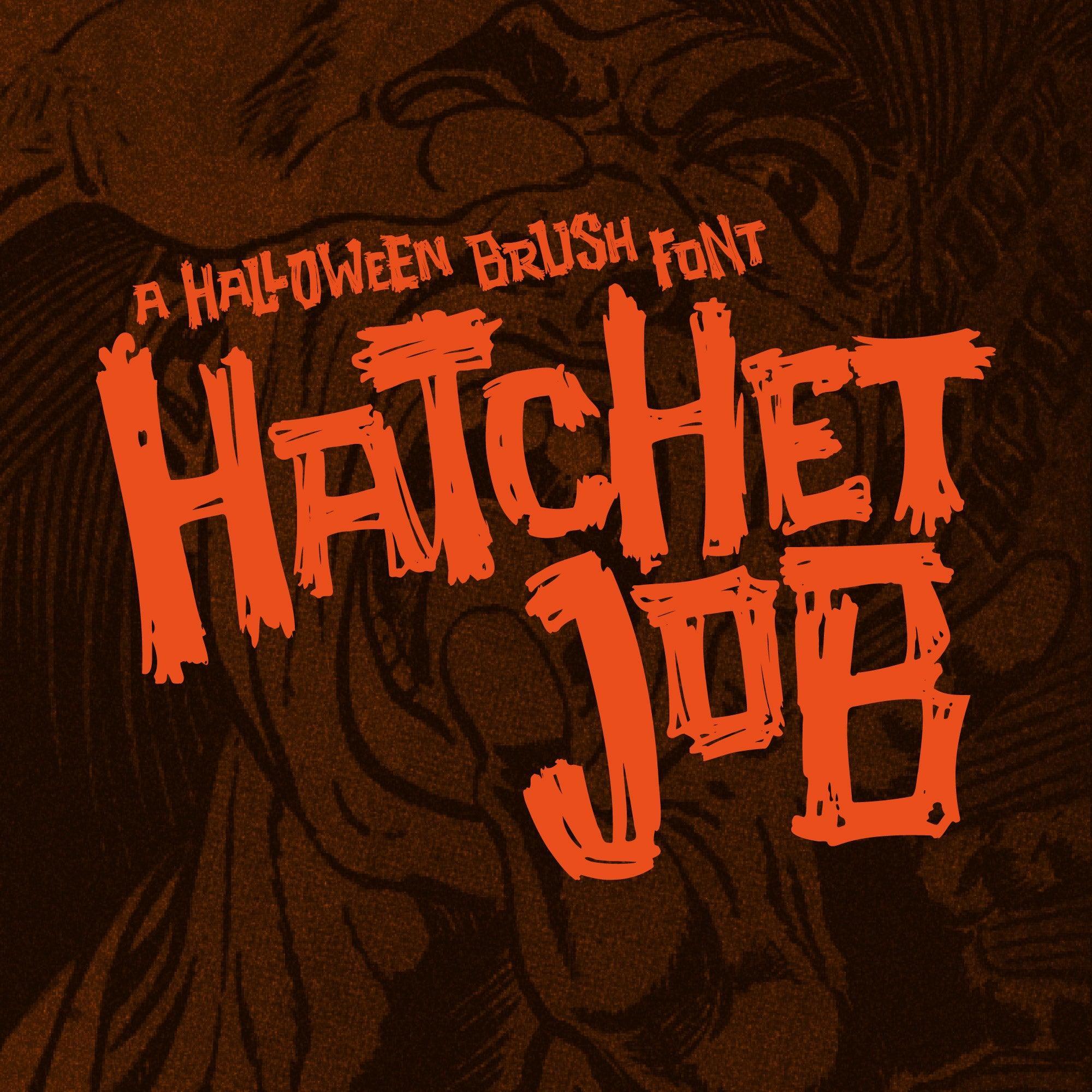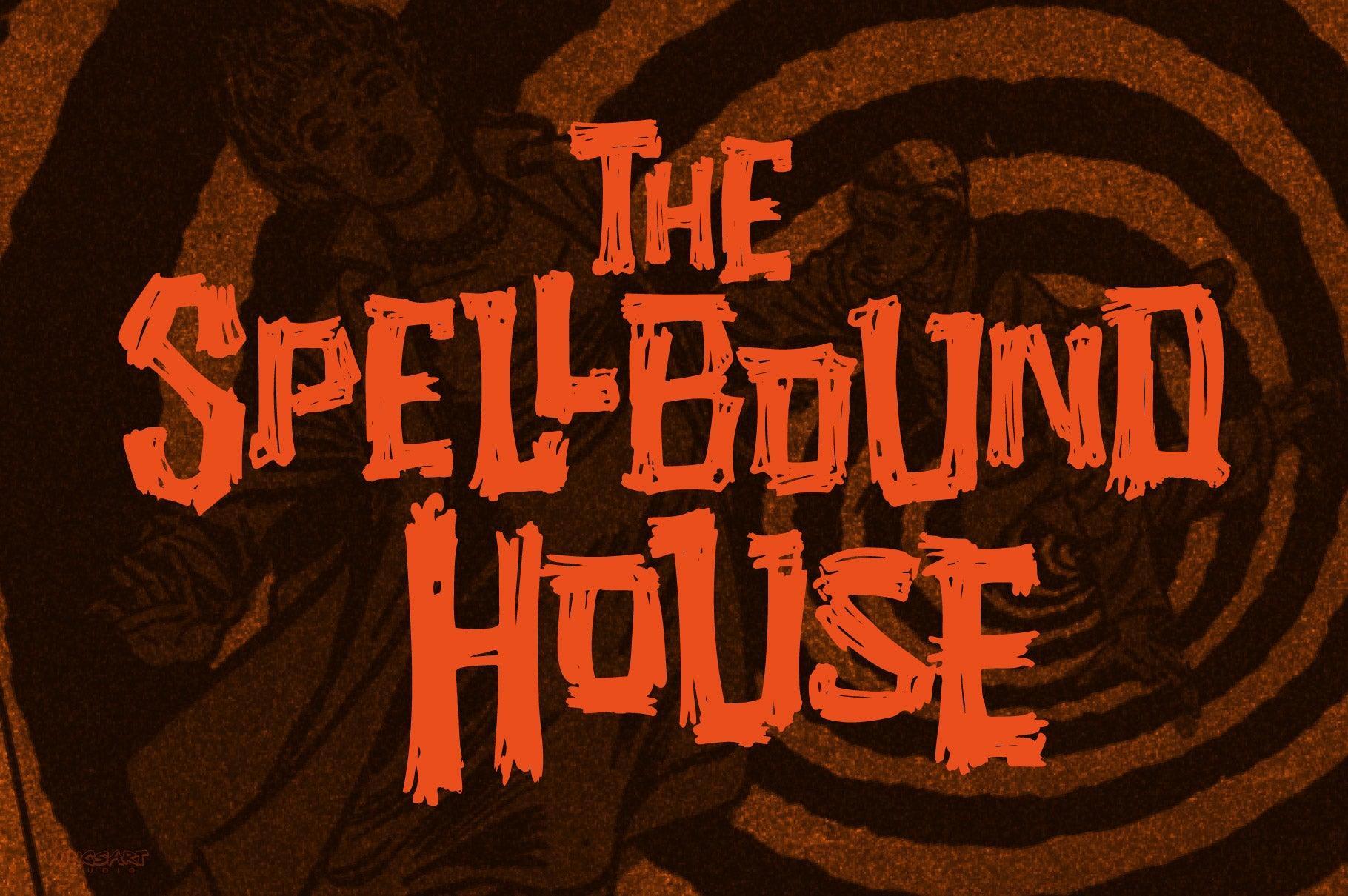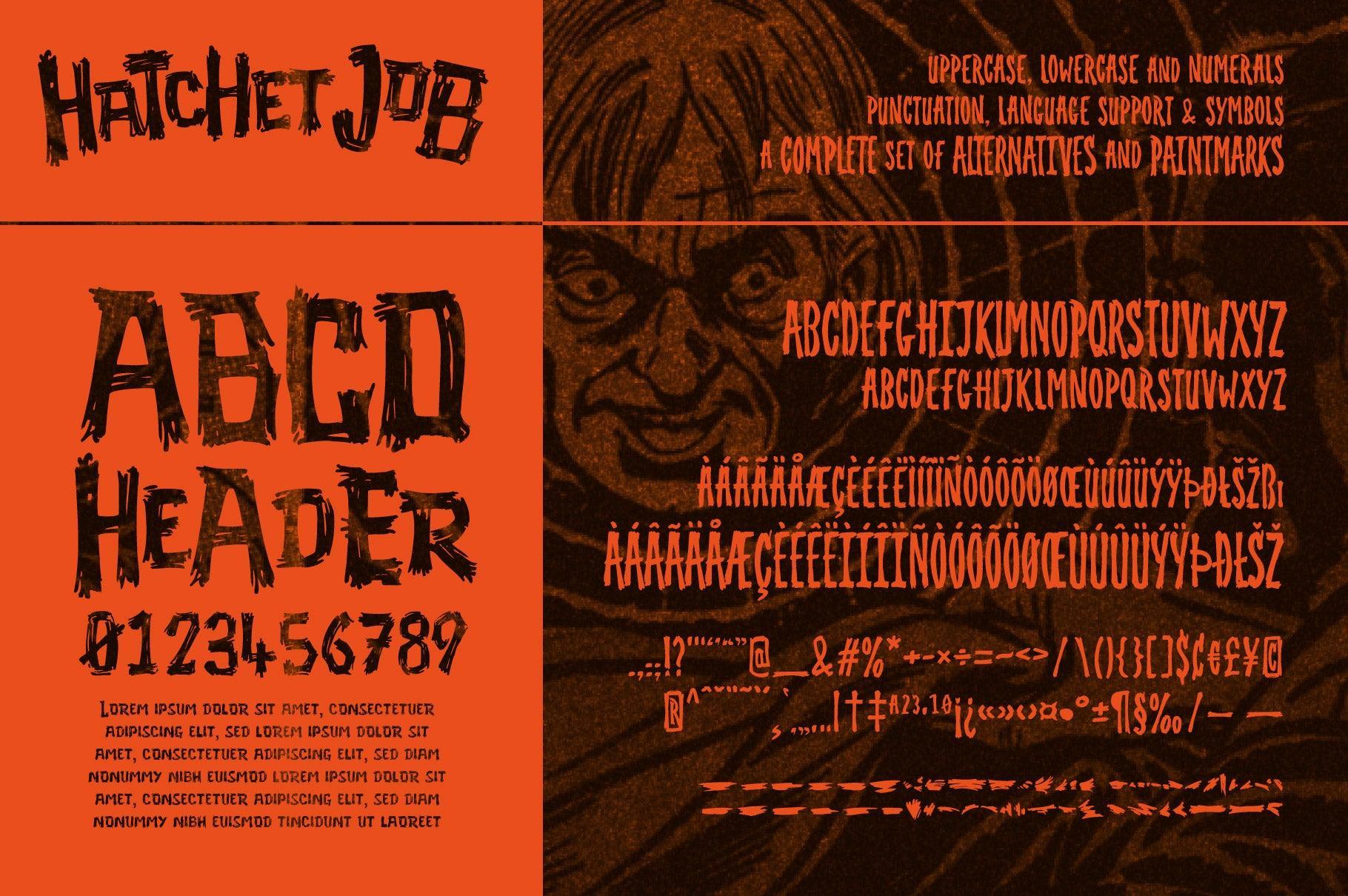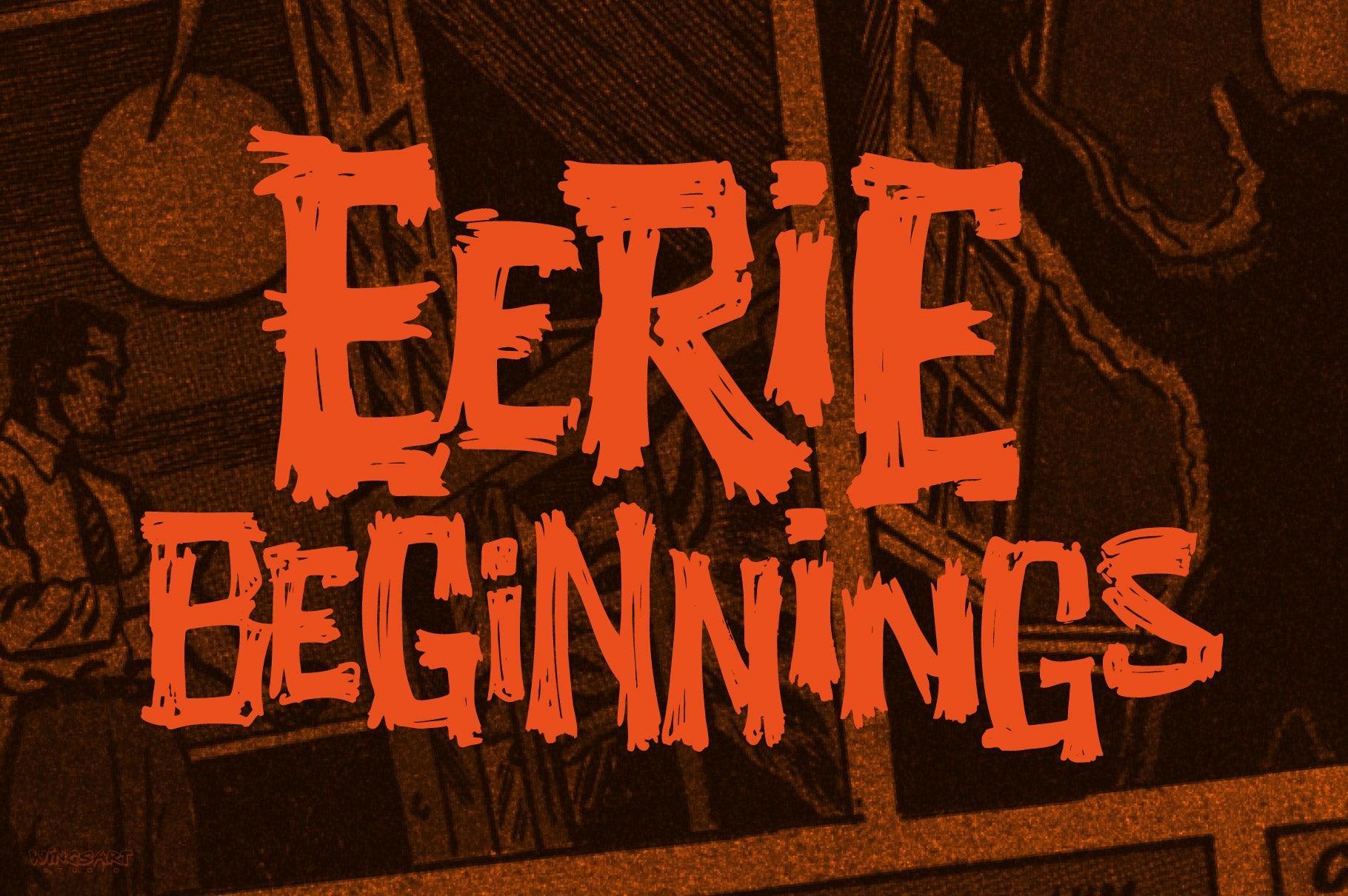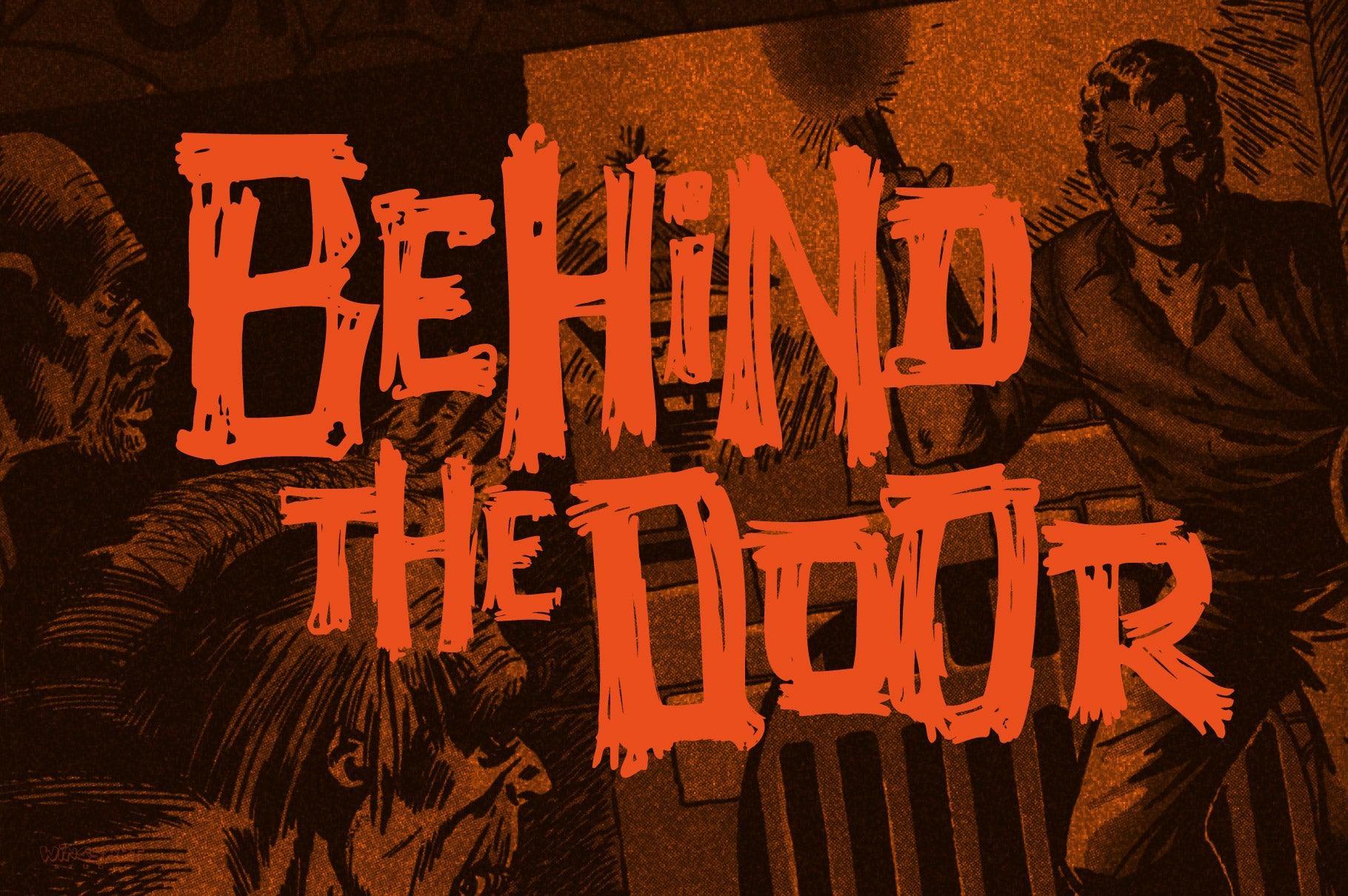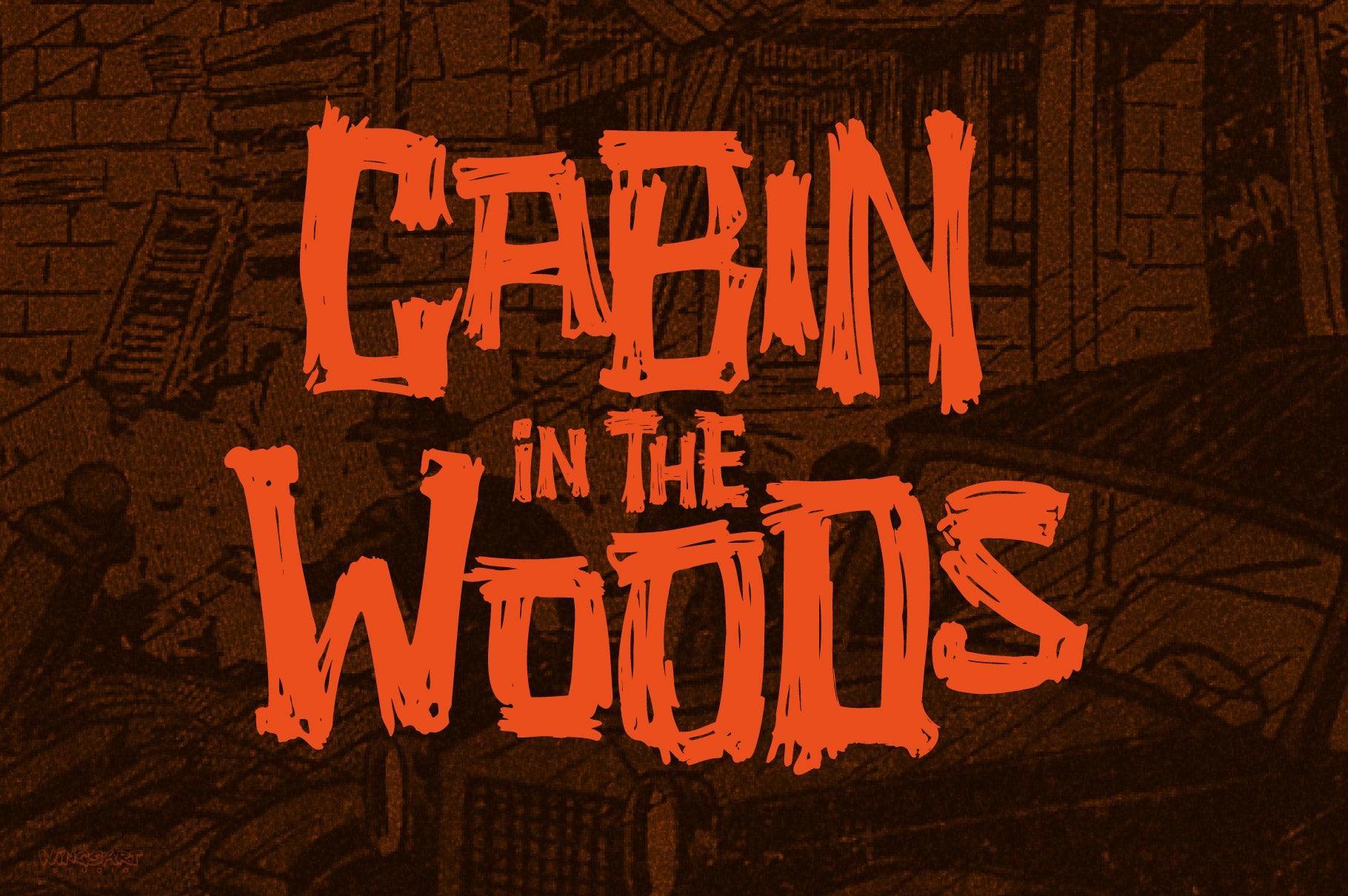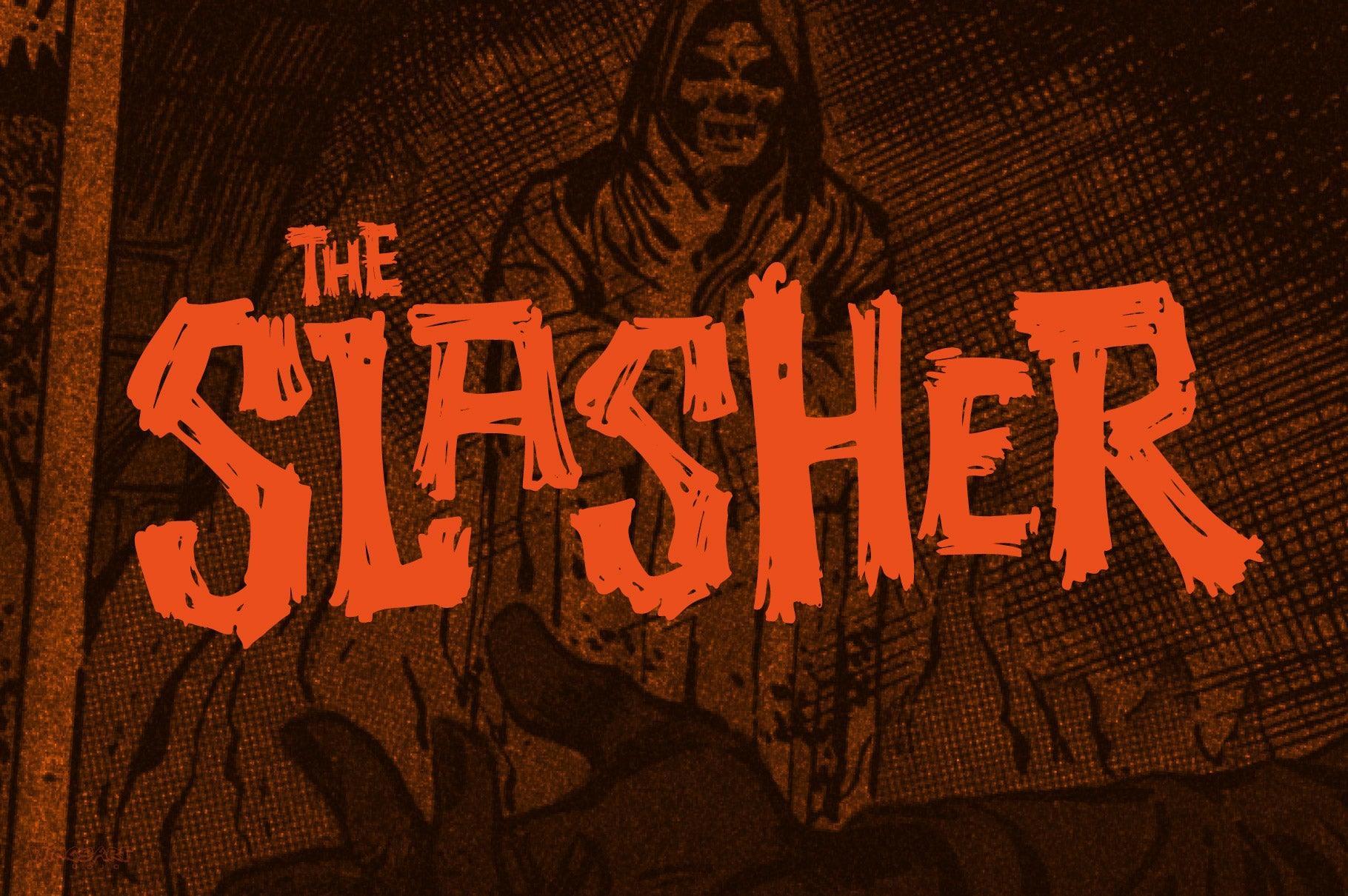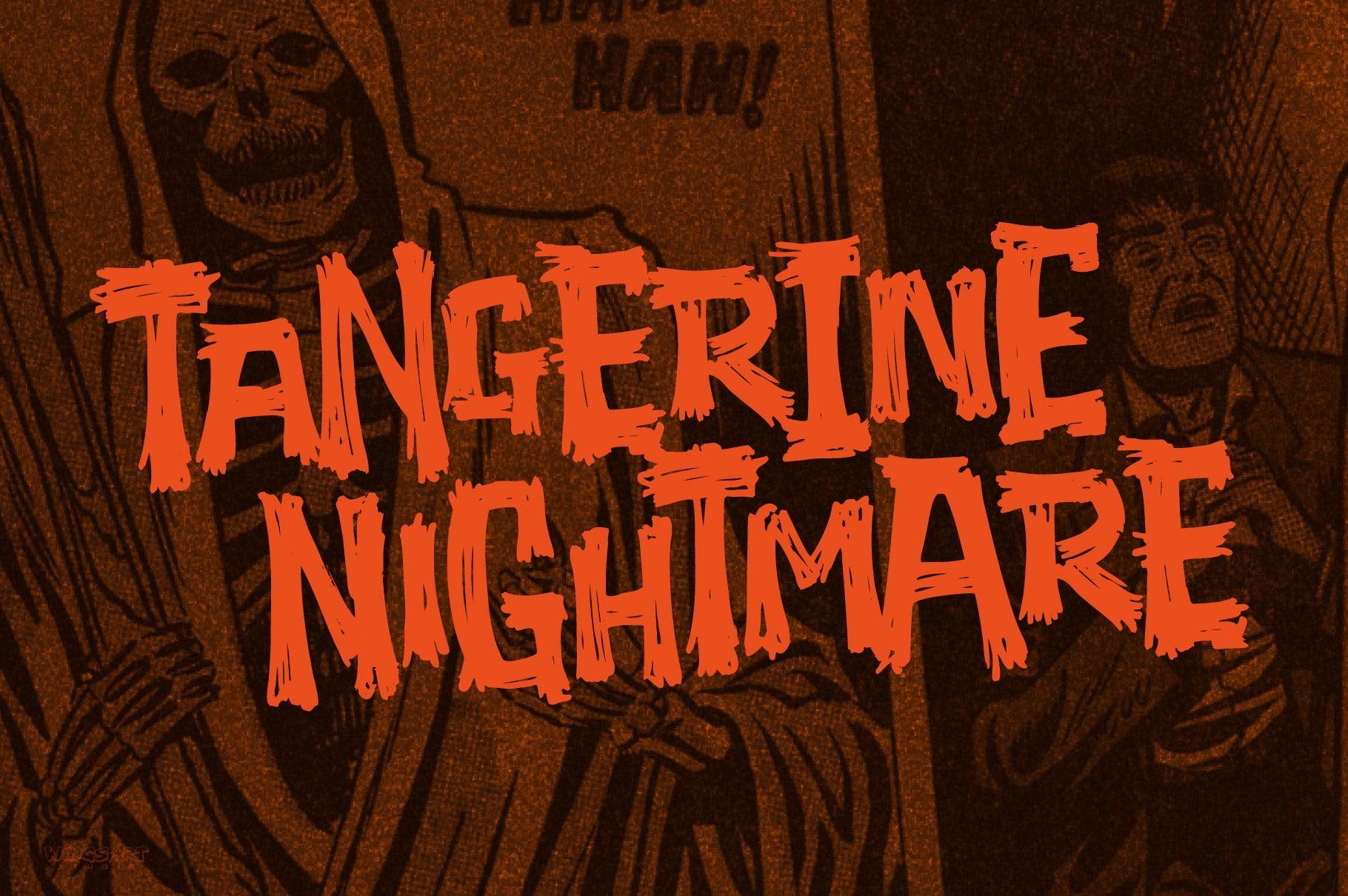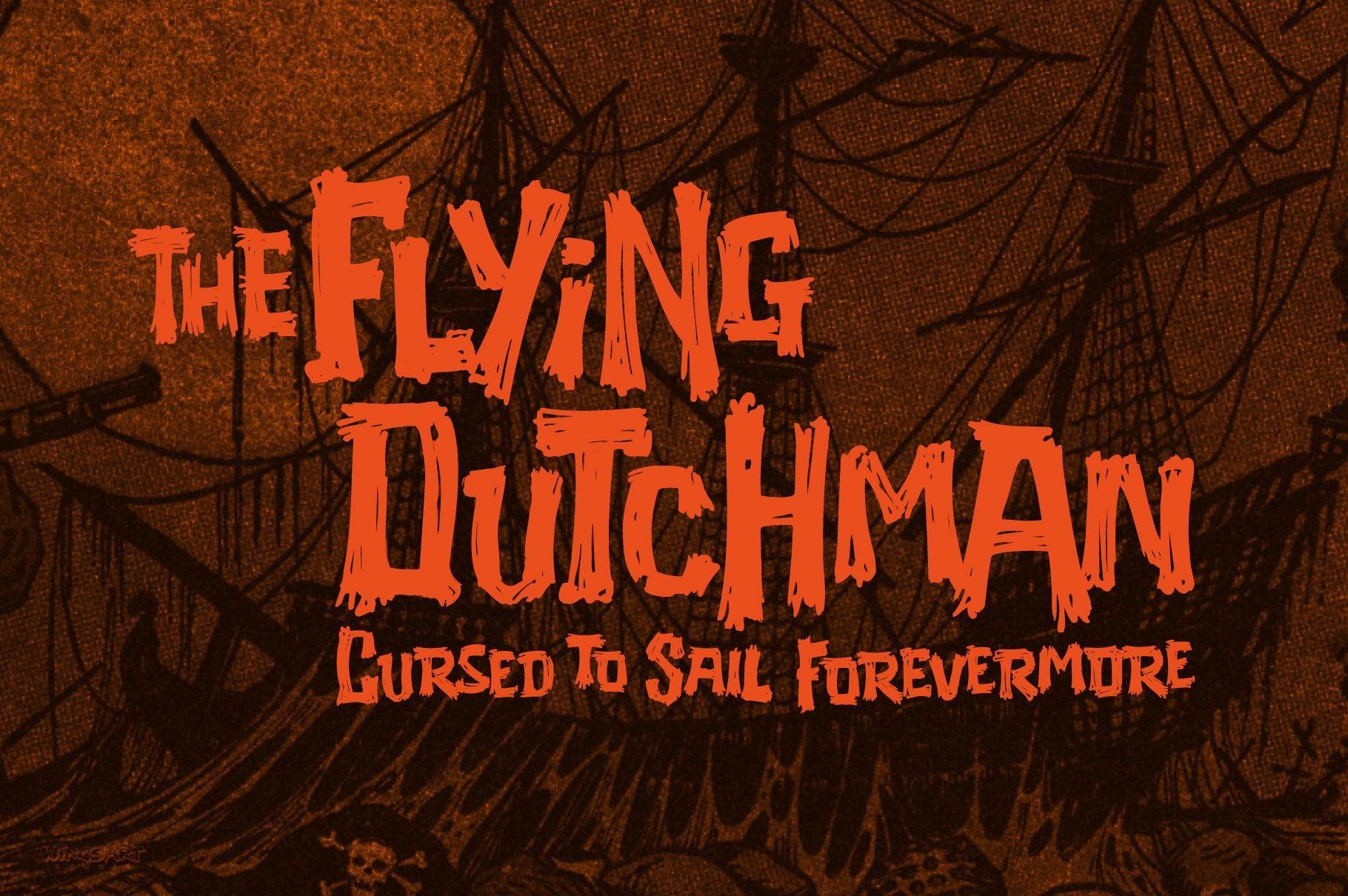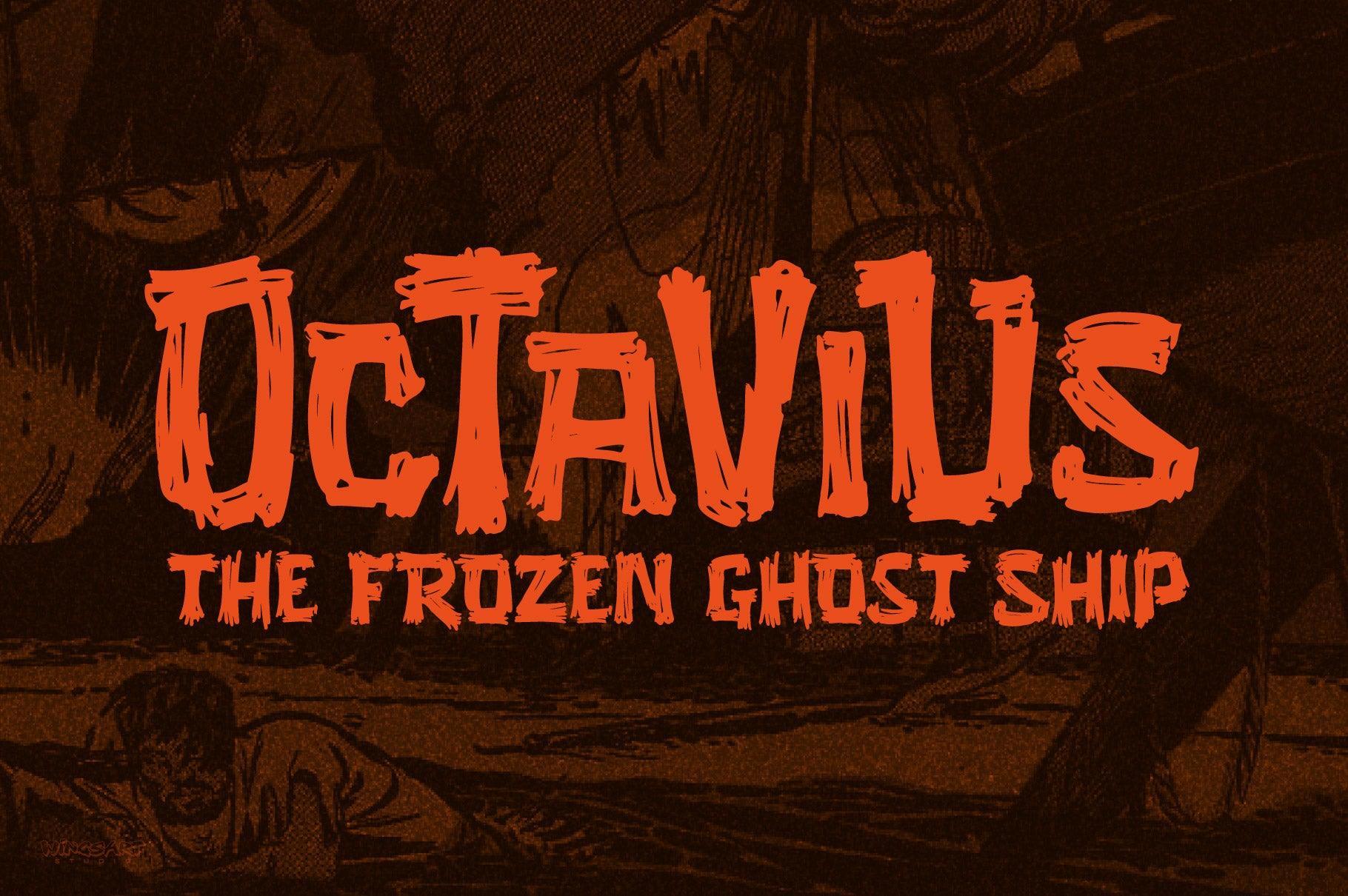
Hatchet Job - A Halloween Brush Font
Hatchet Job is a Halloween-themed brush font inspired by 1970s and 80s slasher and horror films. This all-caps font features bold brush strokes, frayed edges, and includes uppercase and lowercase characters, numerals, punctuation, symbols, alternative characters, and additional paint marks for versatile design options.
Ideal for horror-themed graphic design and retro-inspired projects. Perfect for posters, album covers, and branding, ensuring a striking and eerie aesthetic that captures the essence of 1970s and 80s slasher films.